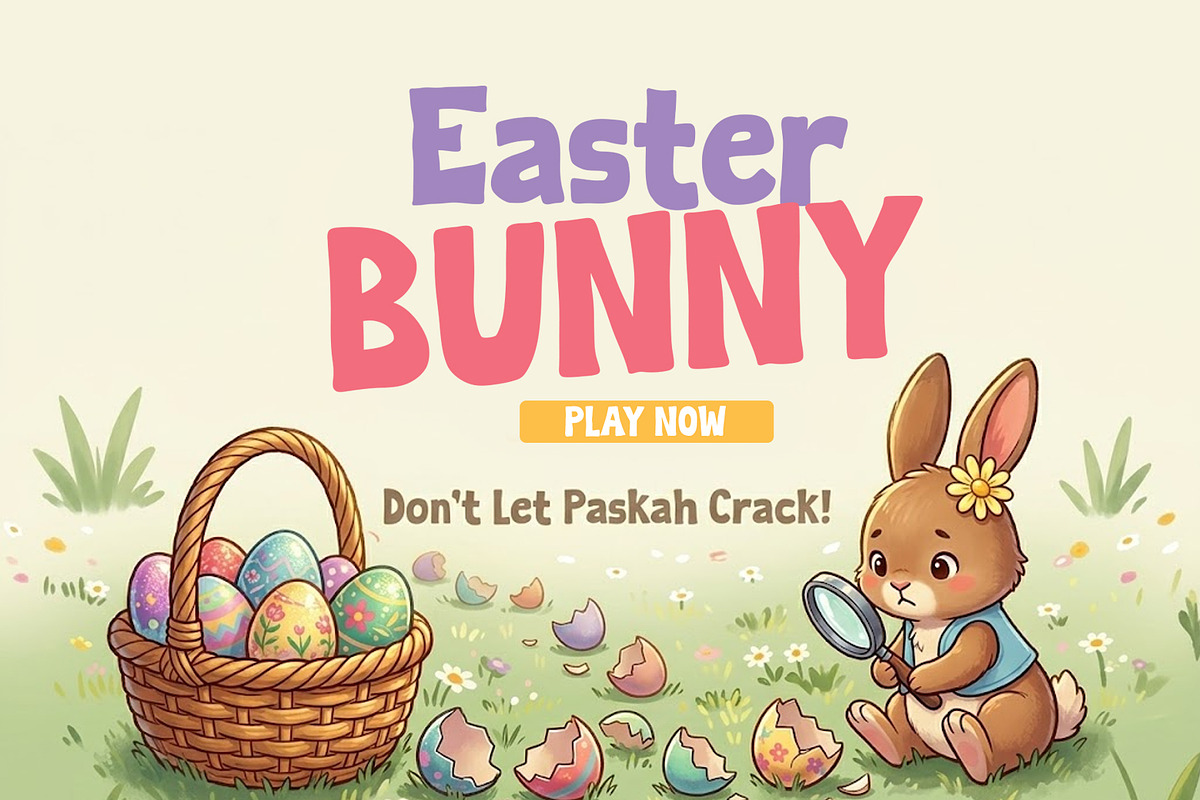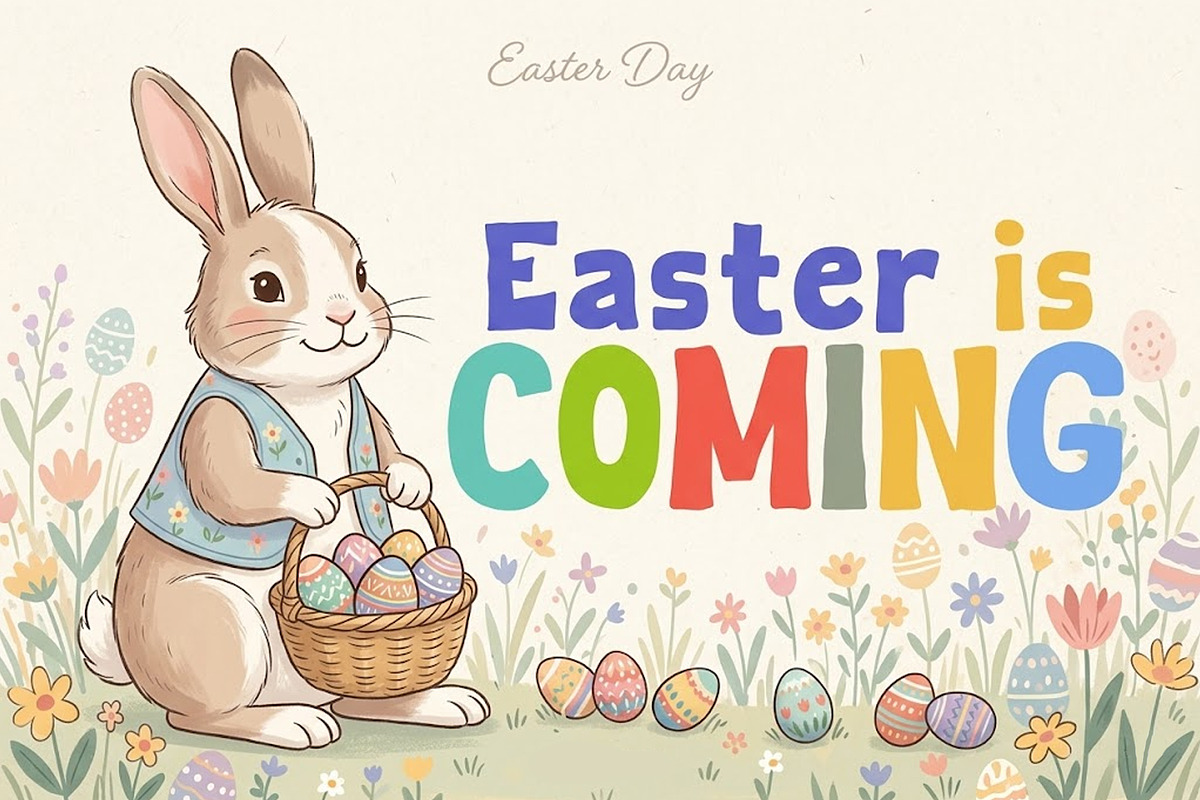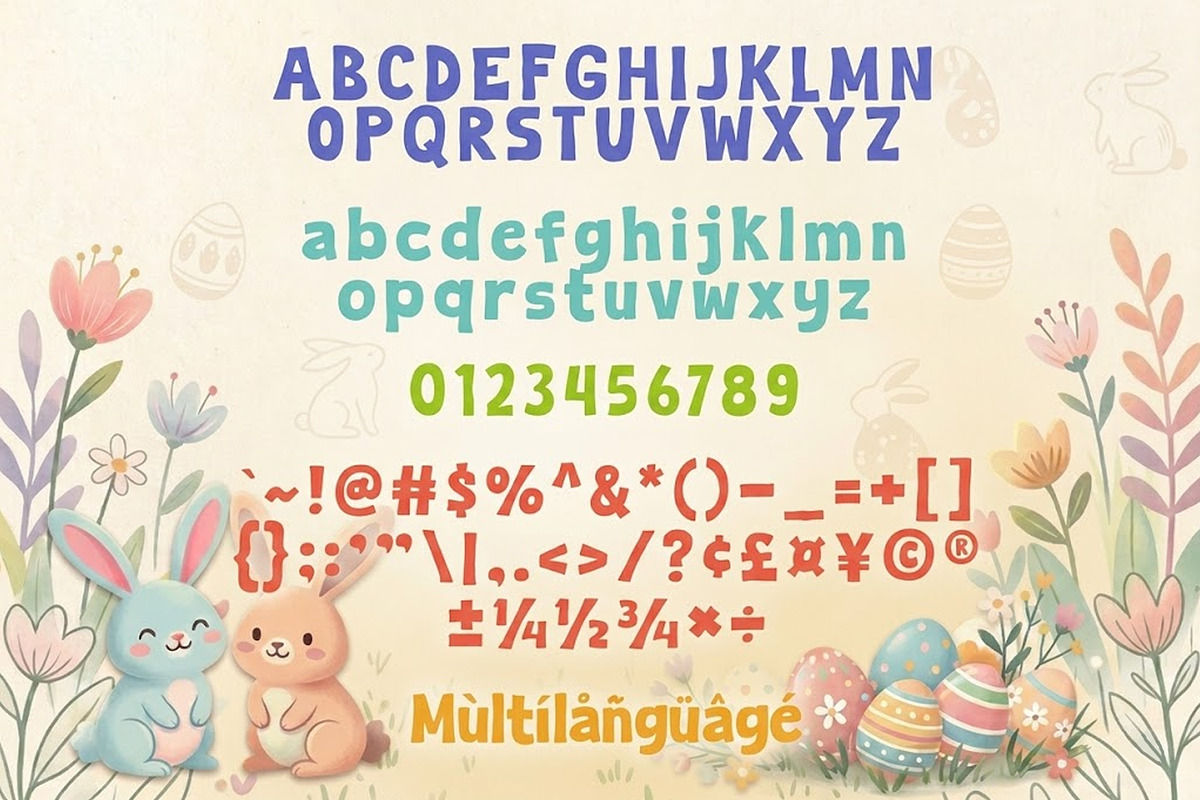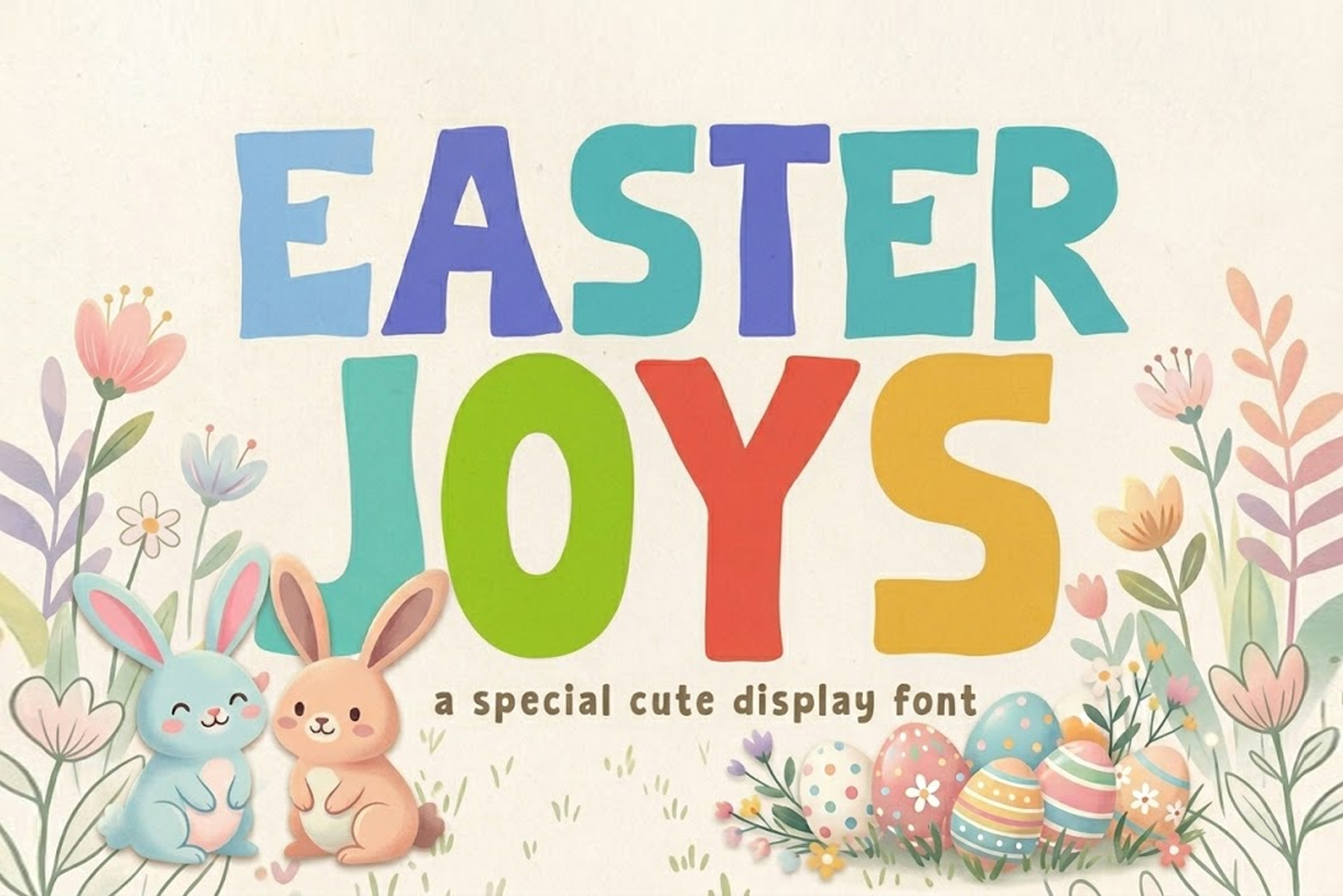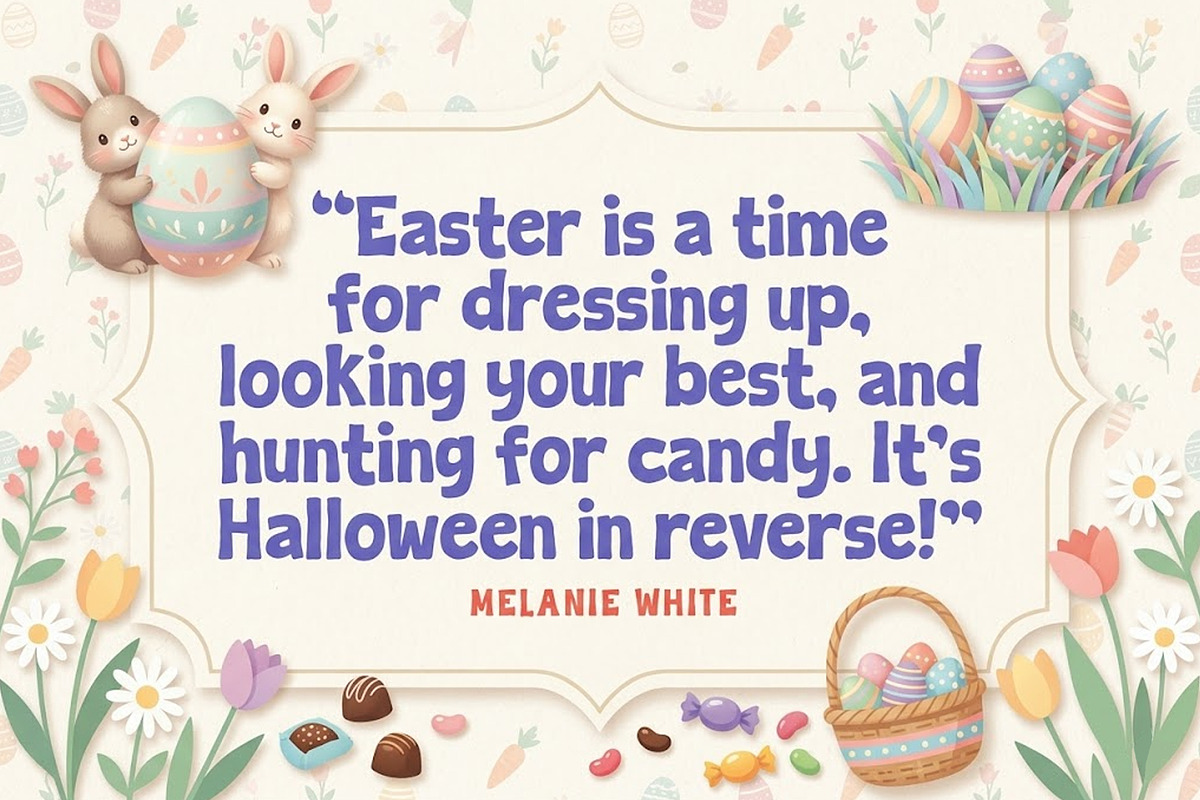
Easter Joys - Playful Display Font
Introducing, Easter Joys font a fun display typeface with cheerful theme for your fun project. Easter Joys font suitable for logo, branding, greeting card, poster and any design that you create.